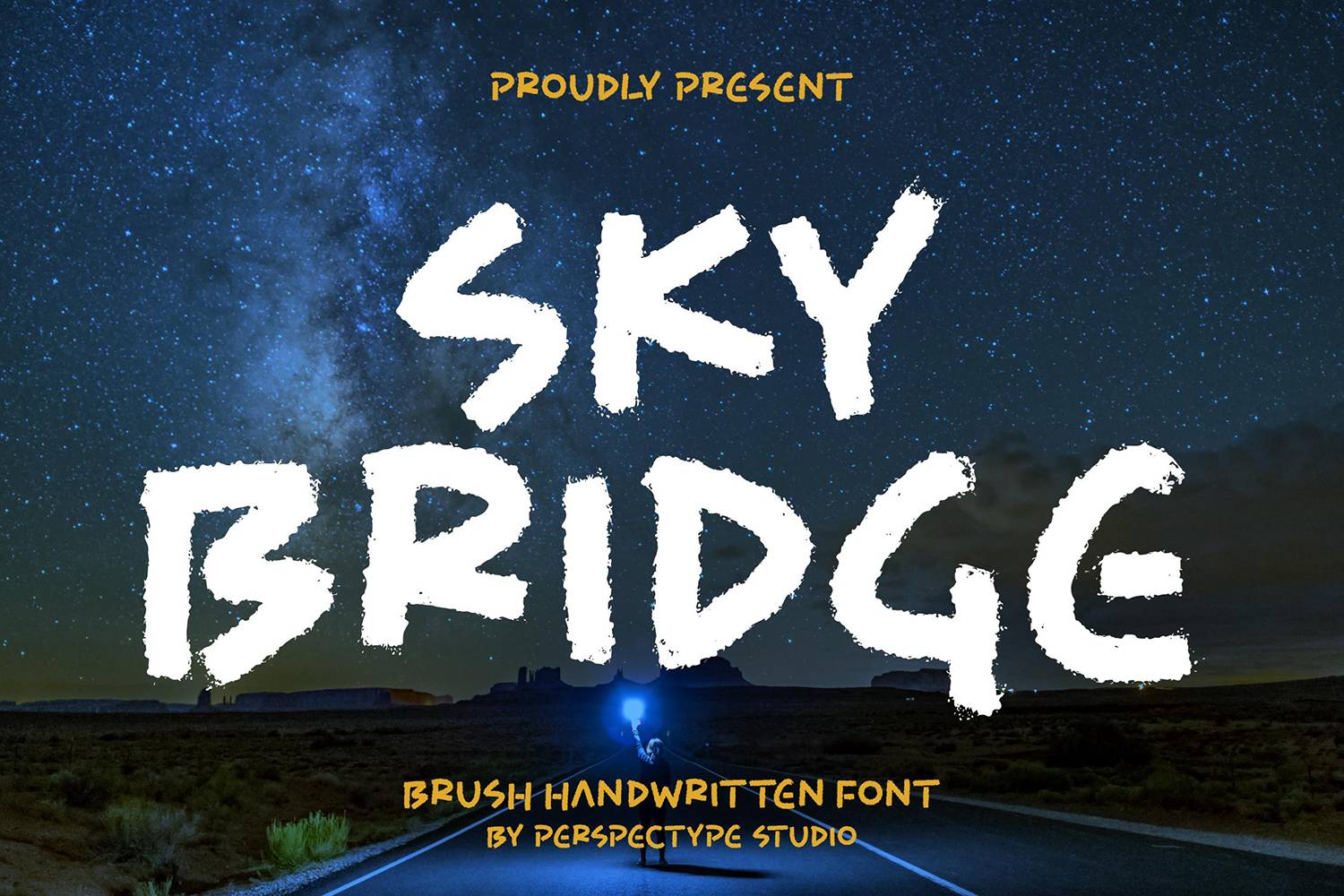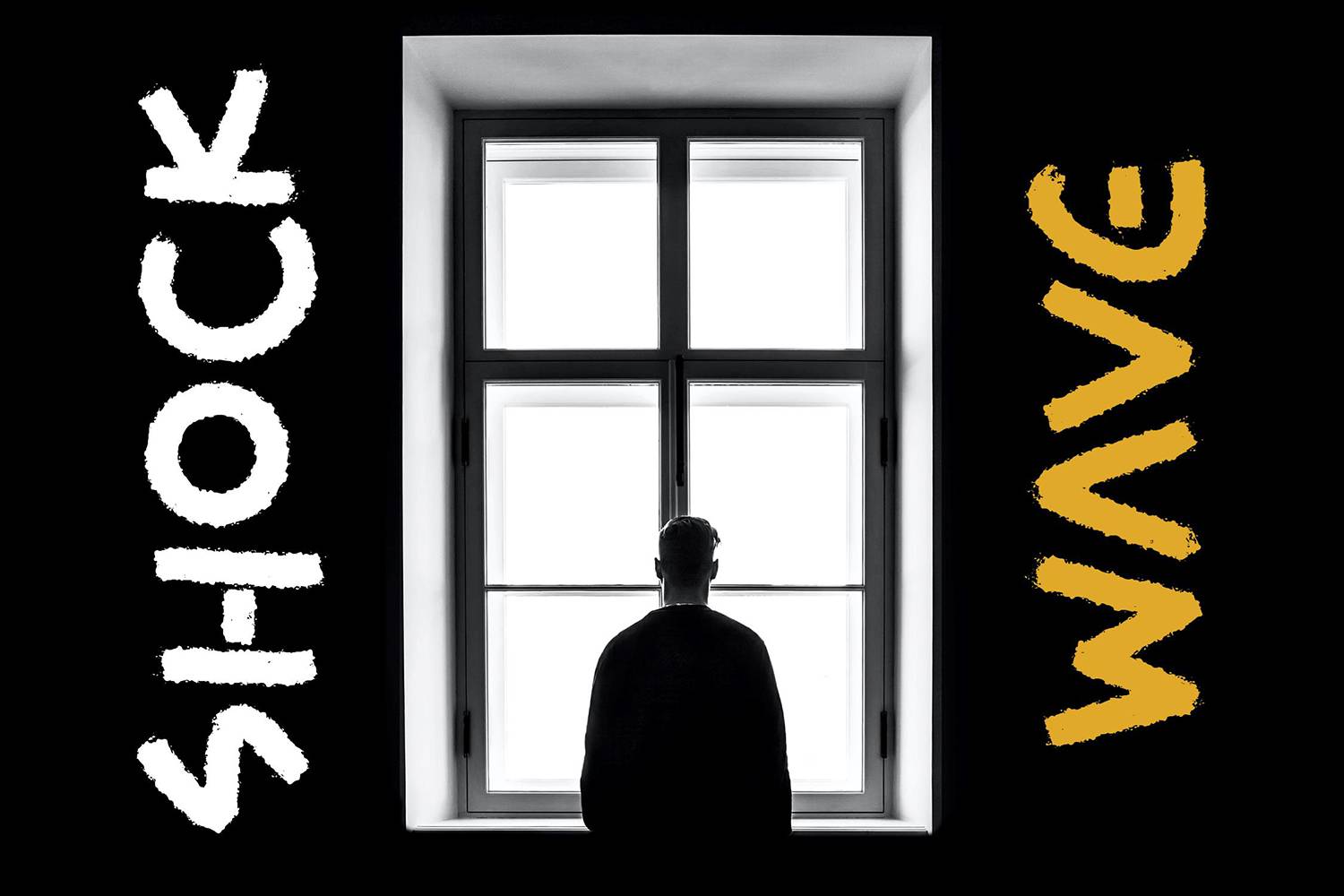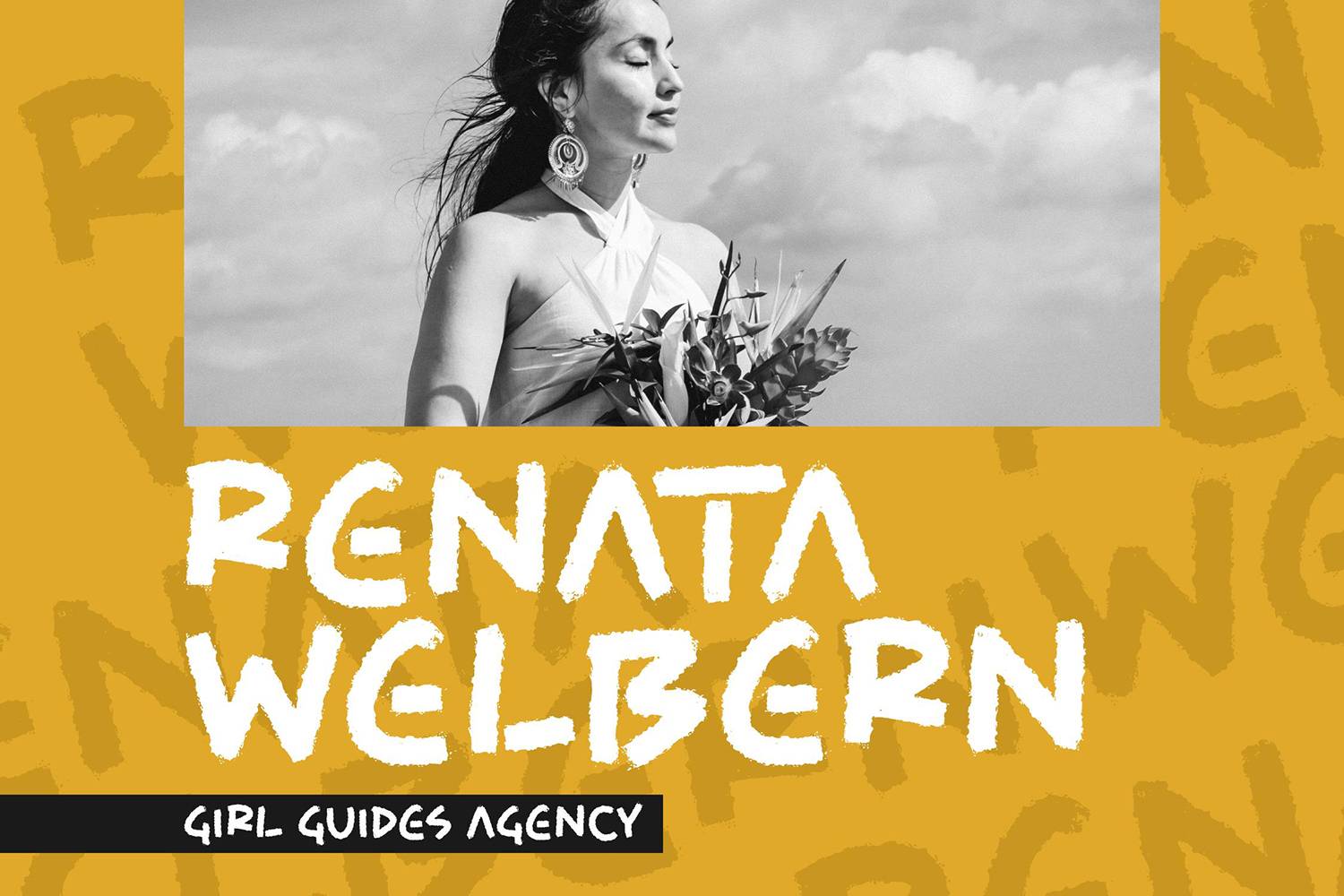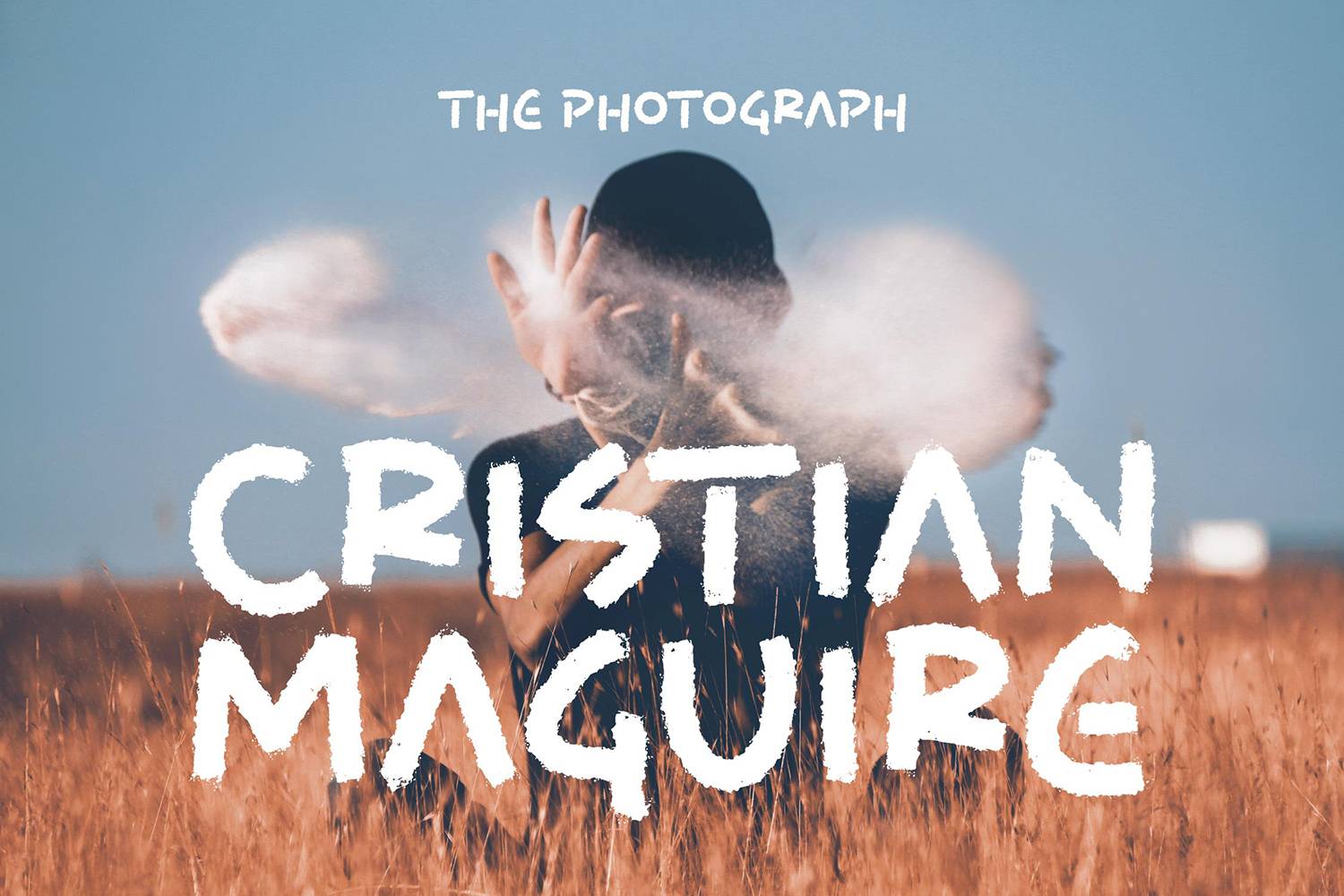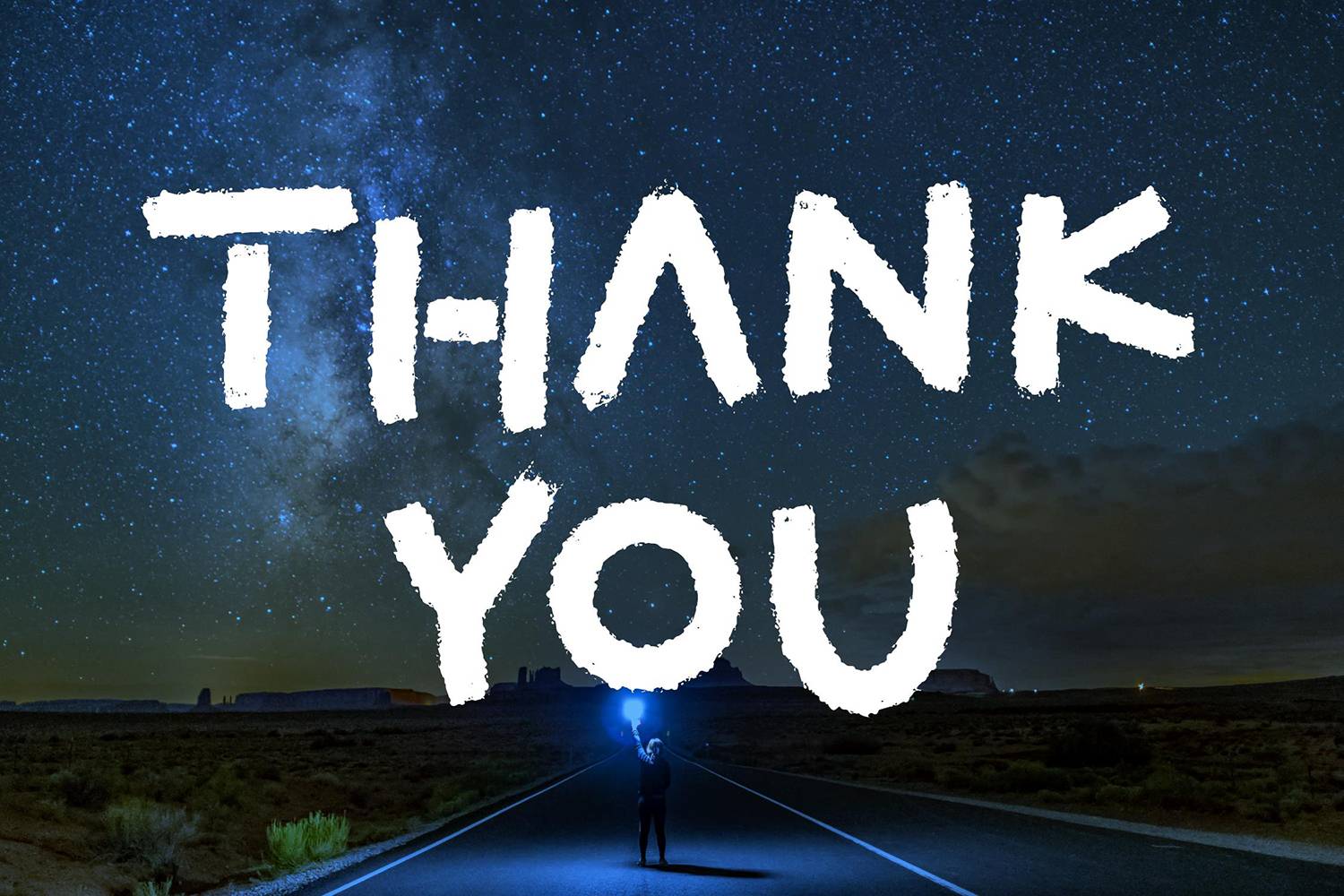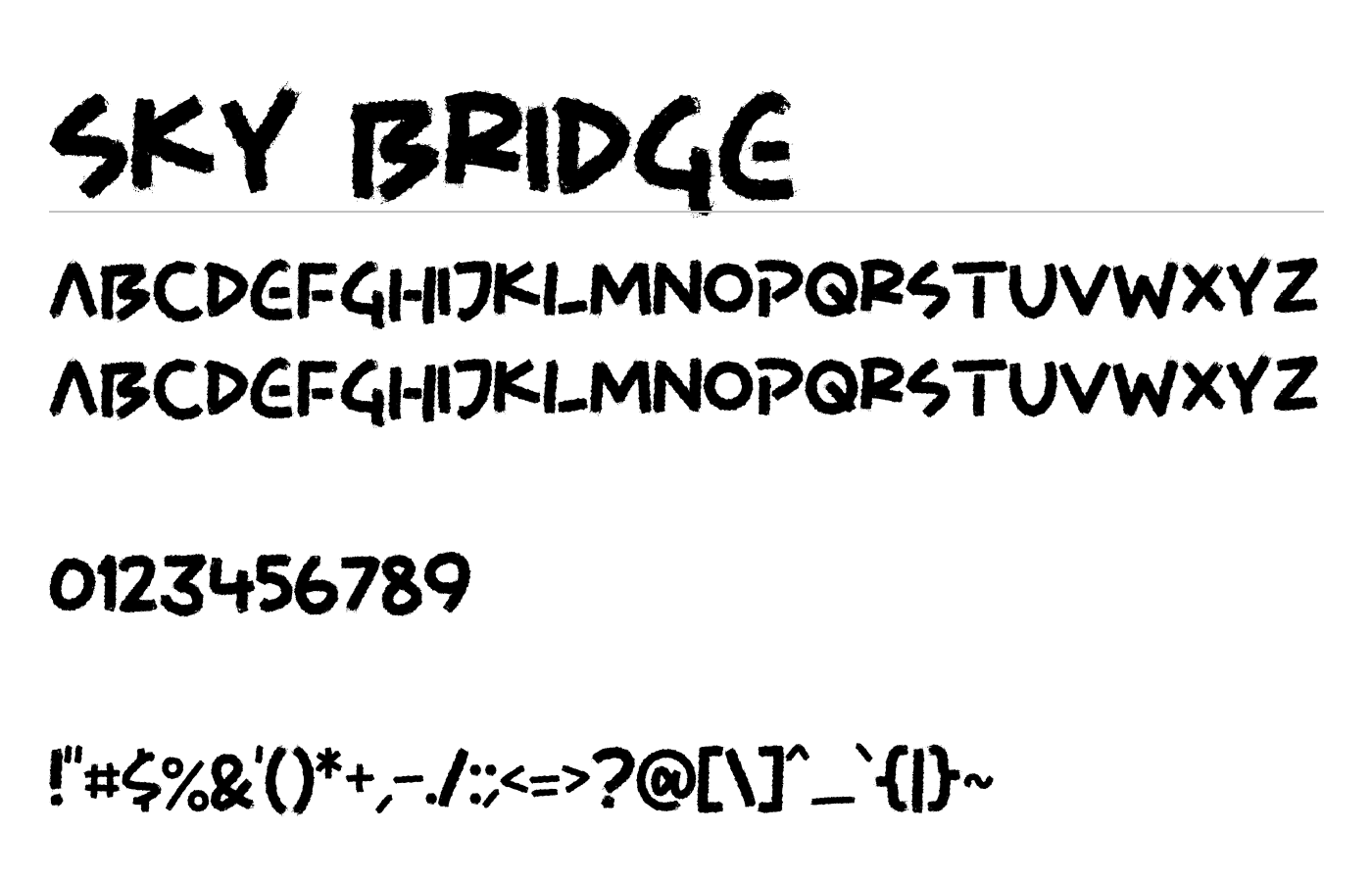
Sky Bridge is a bold, casual handwritten sans serif font with a dynamic brush texture that gives it an energetic and informal feel. Its irregular, slightly rough strokes and wide letterforms make it perfect for creative, playful designs that need a personal hand-crafted touch. This font works well for eye-catching headlines, posters, branding, and any project seeking a lively, approachable style.
Sky Bridge Font